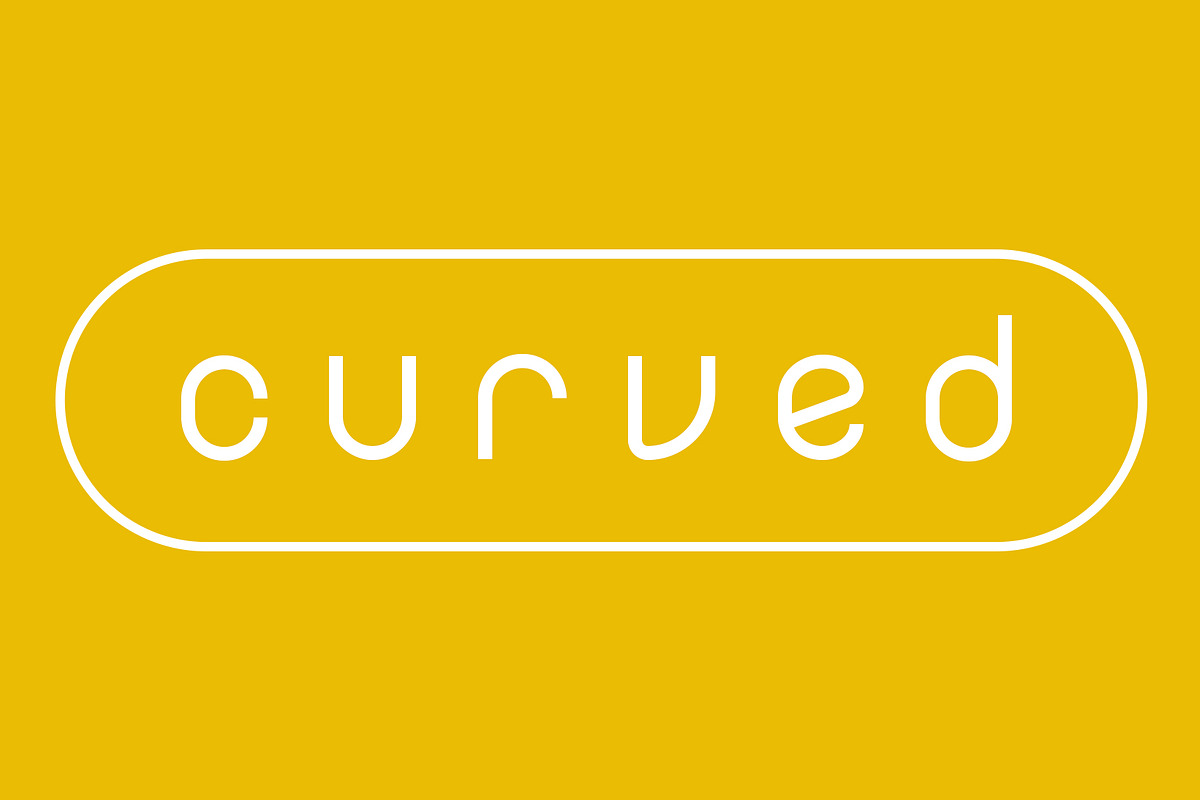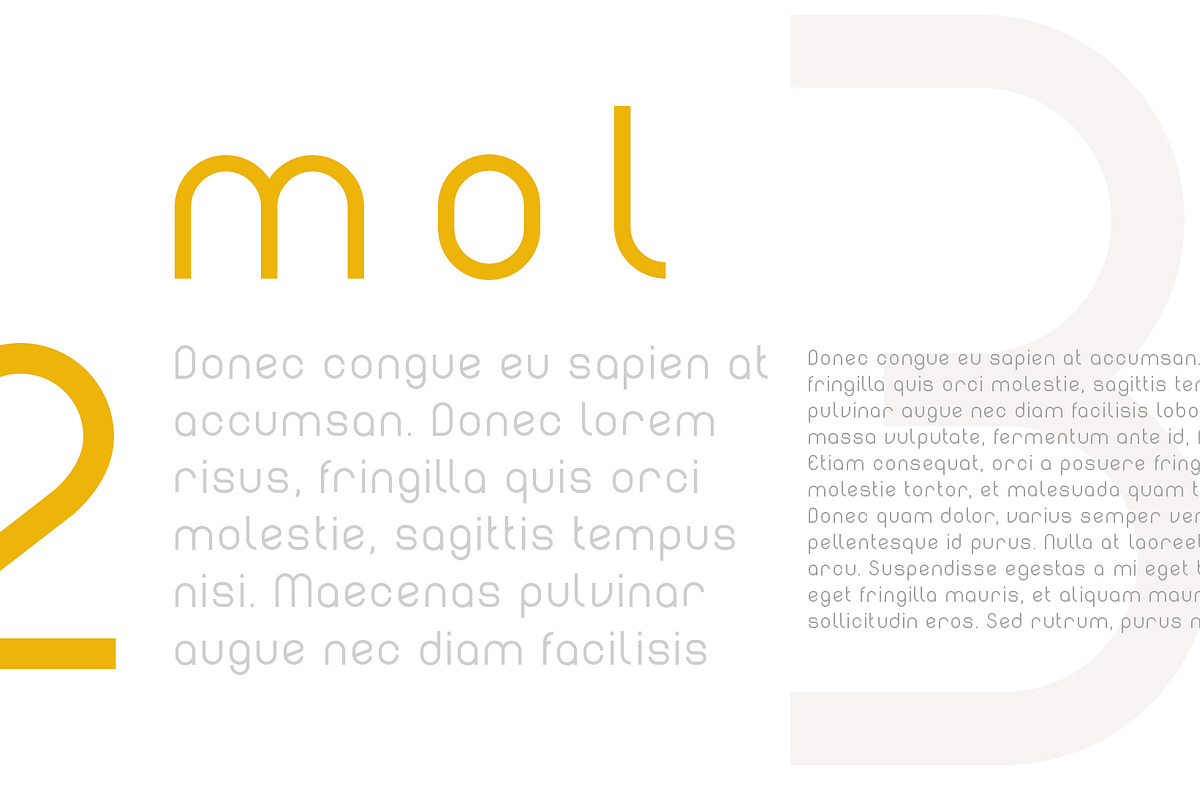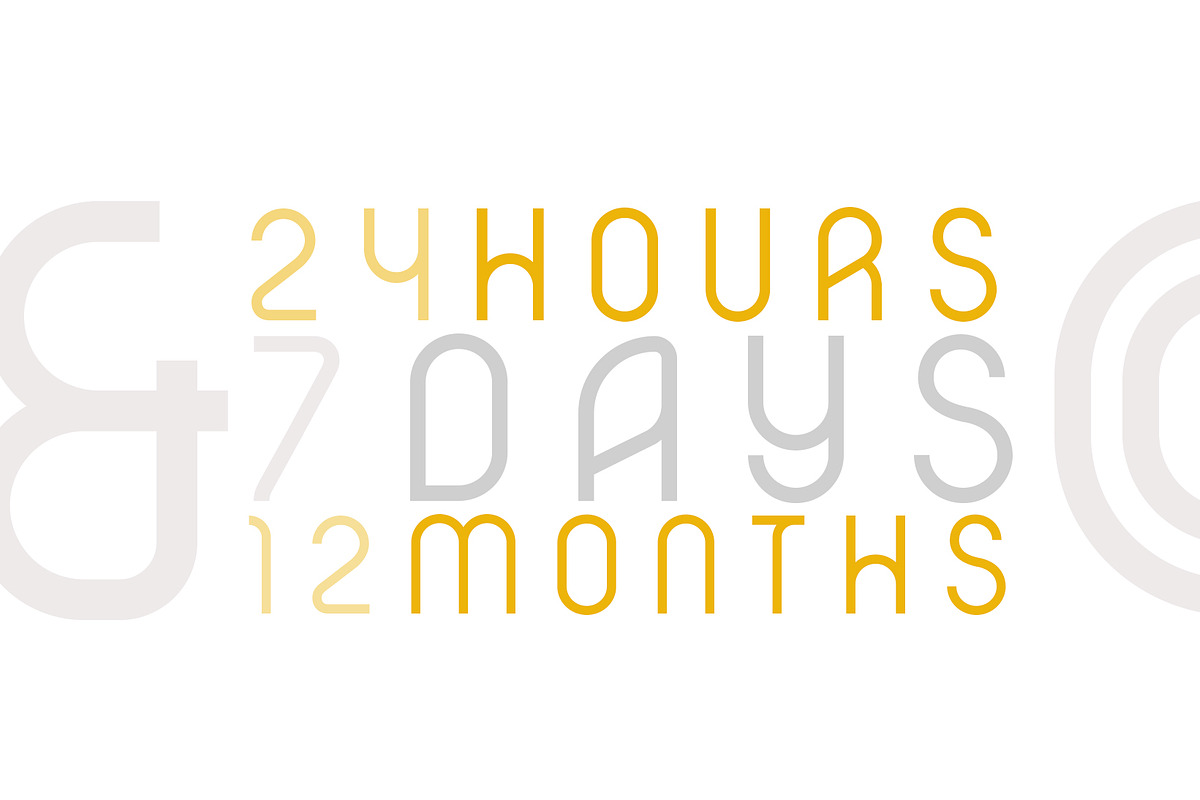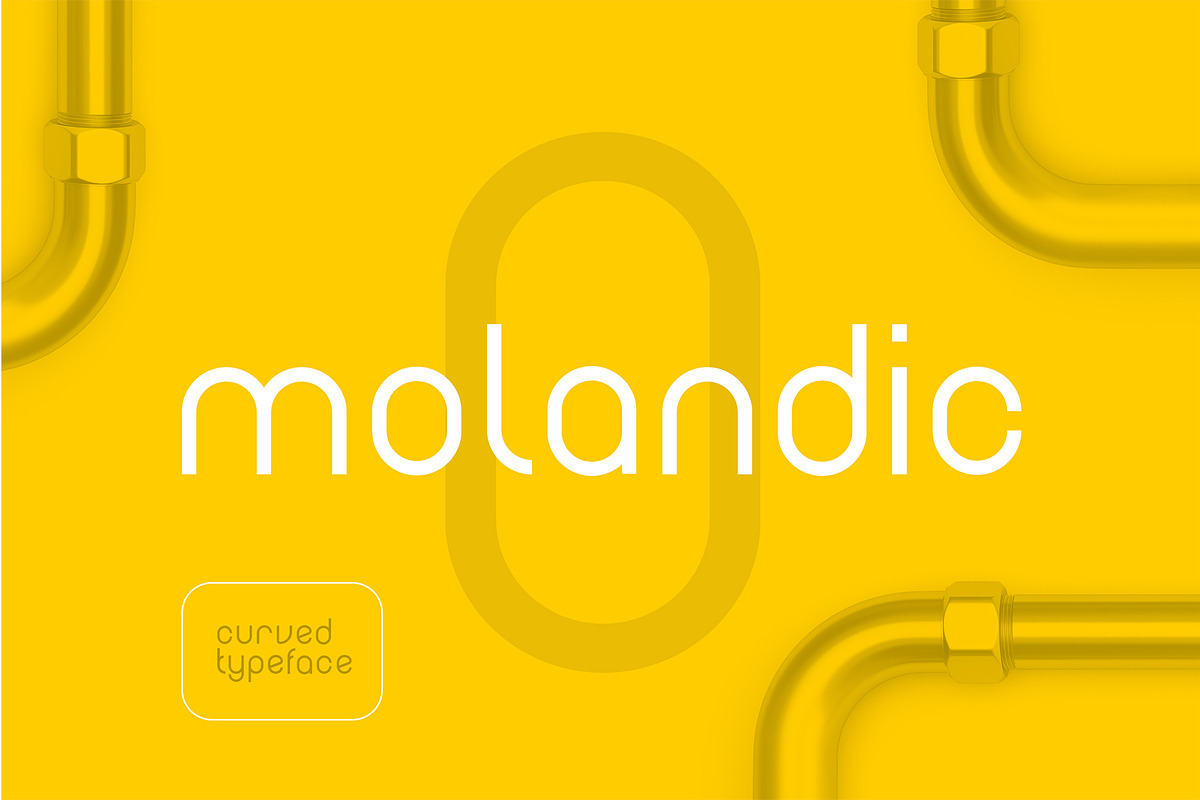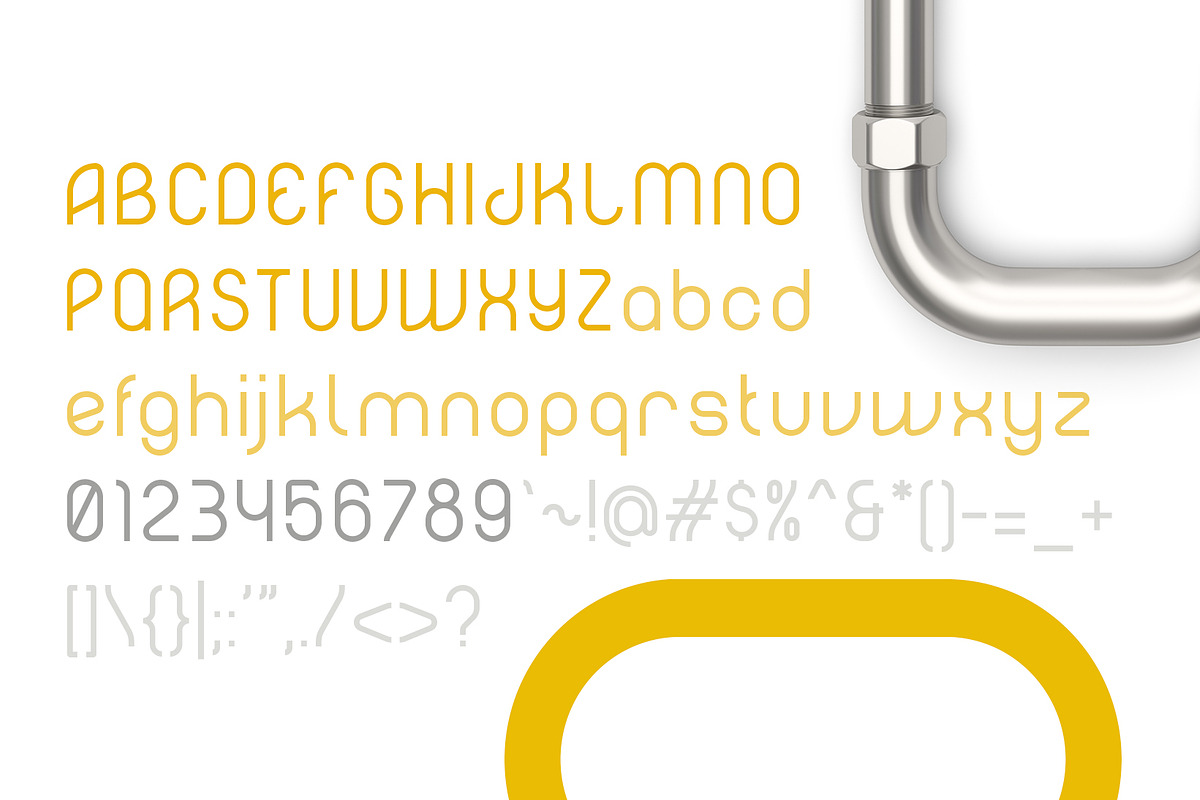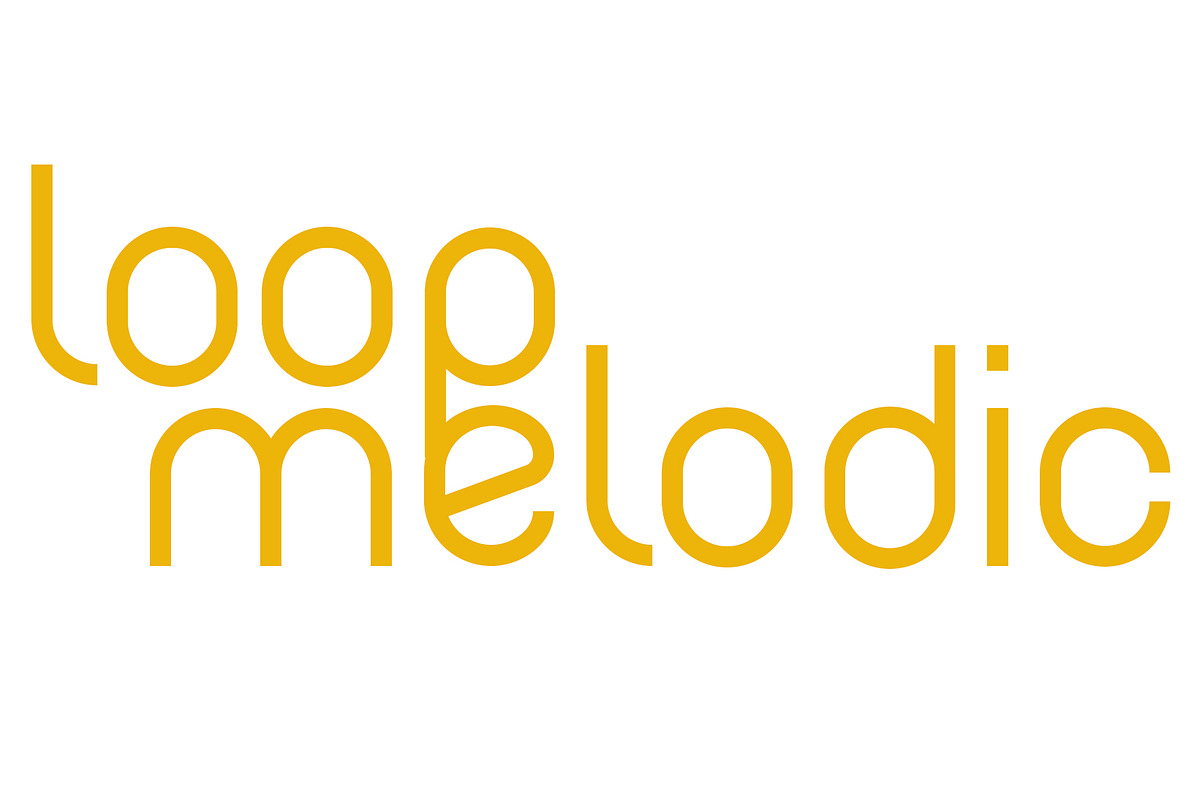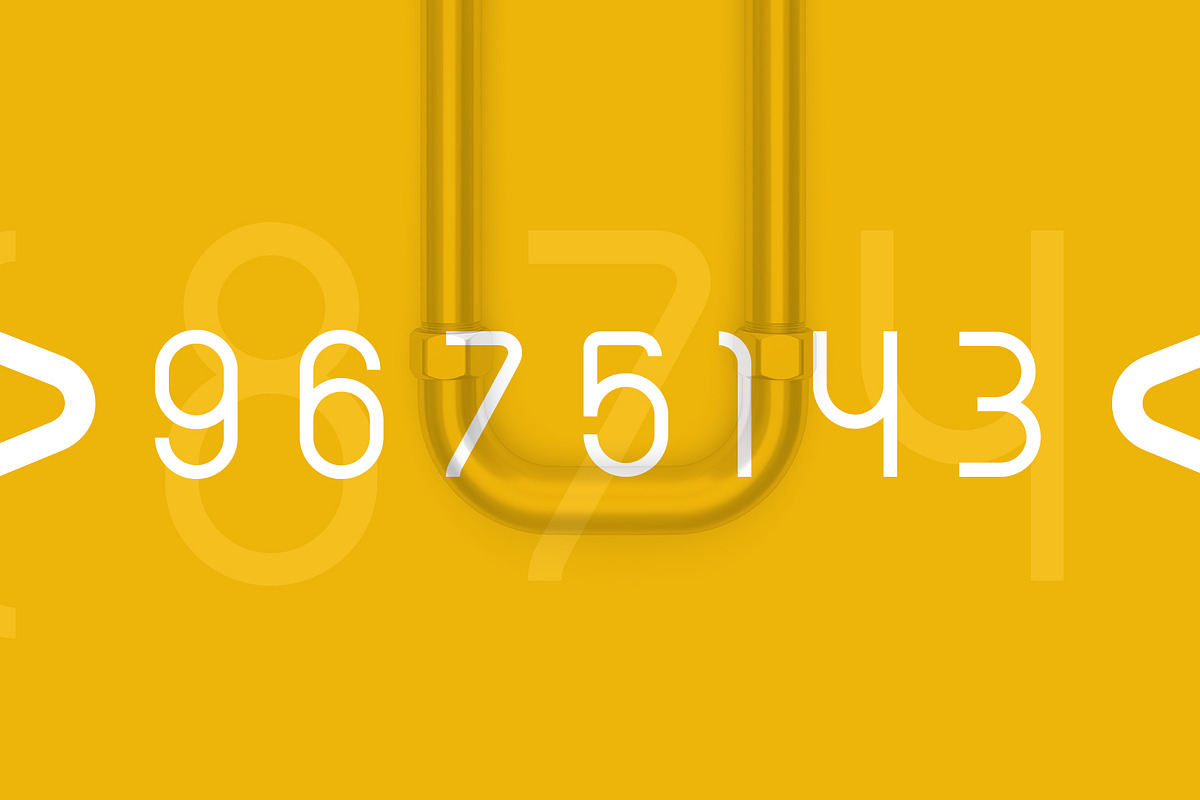
Molandic
Molandic is a clean, modern and minimalist font that inspired by curved shape. It's very versatile in use, especially in logo design or brand identity project. It comes with standard ghlyps.